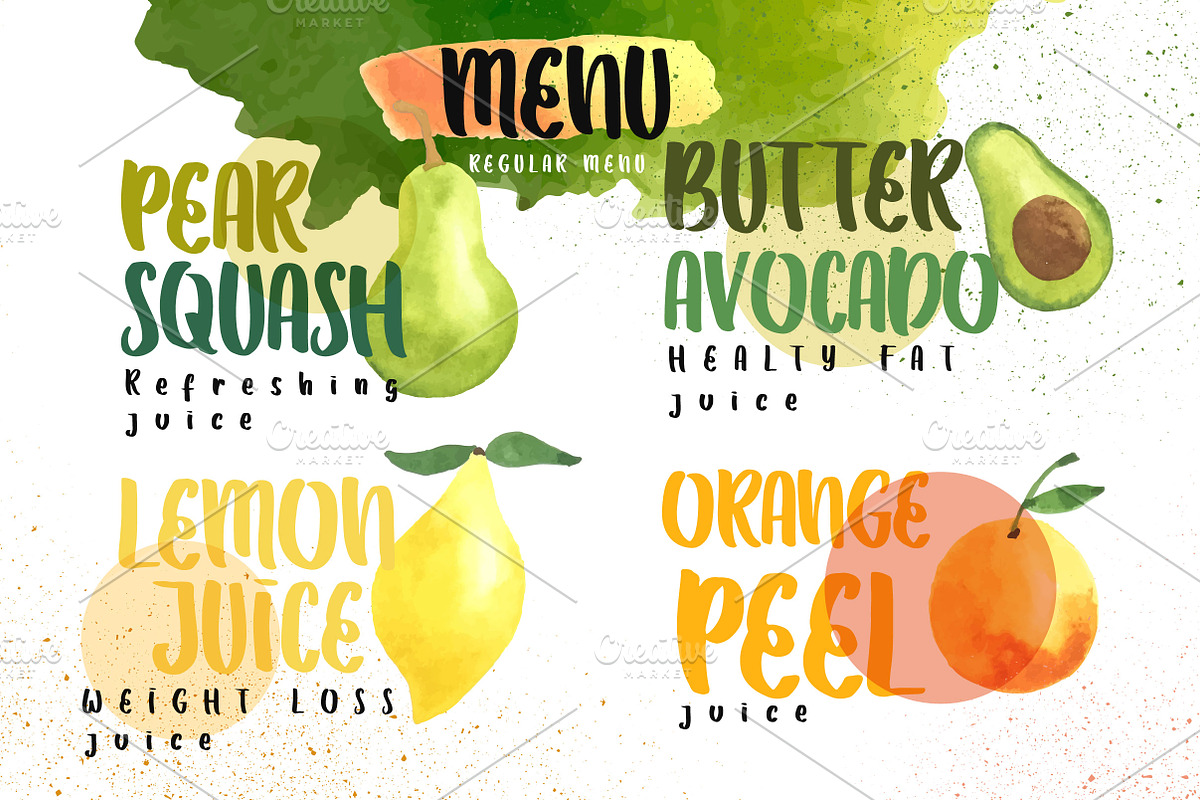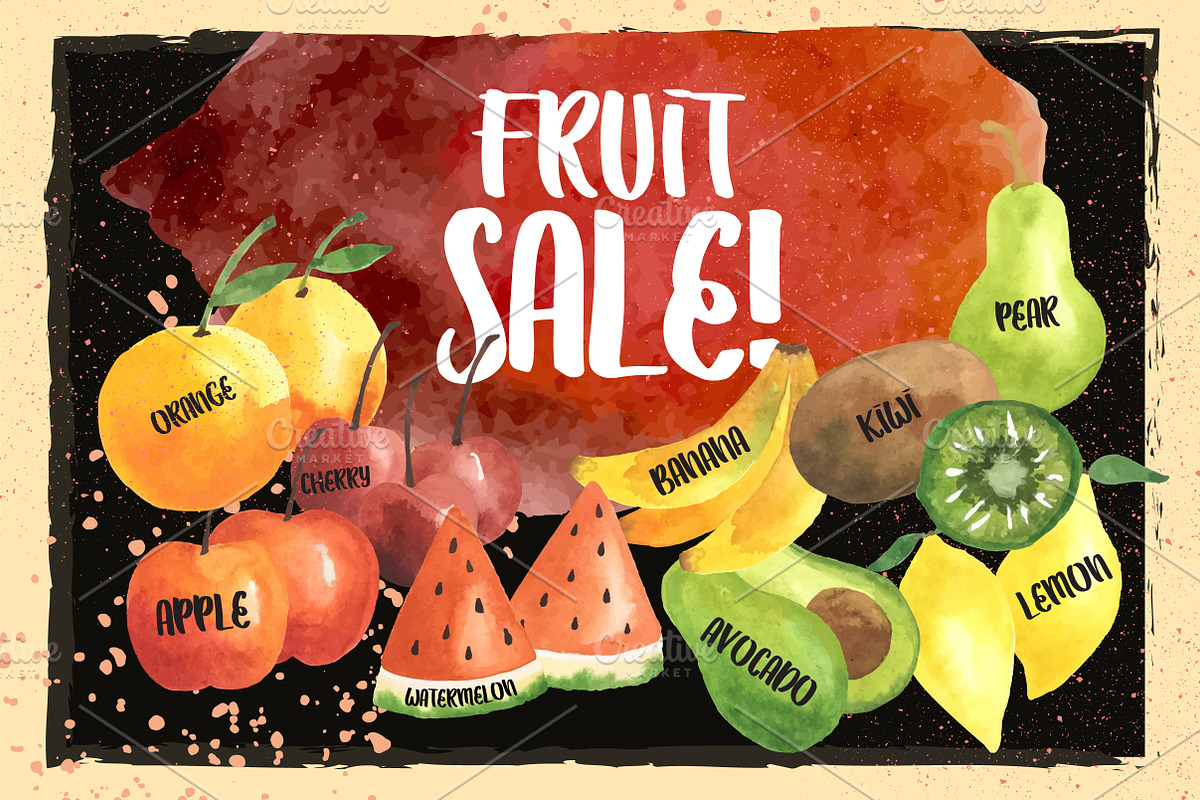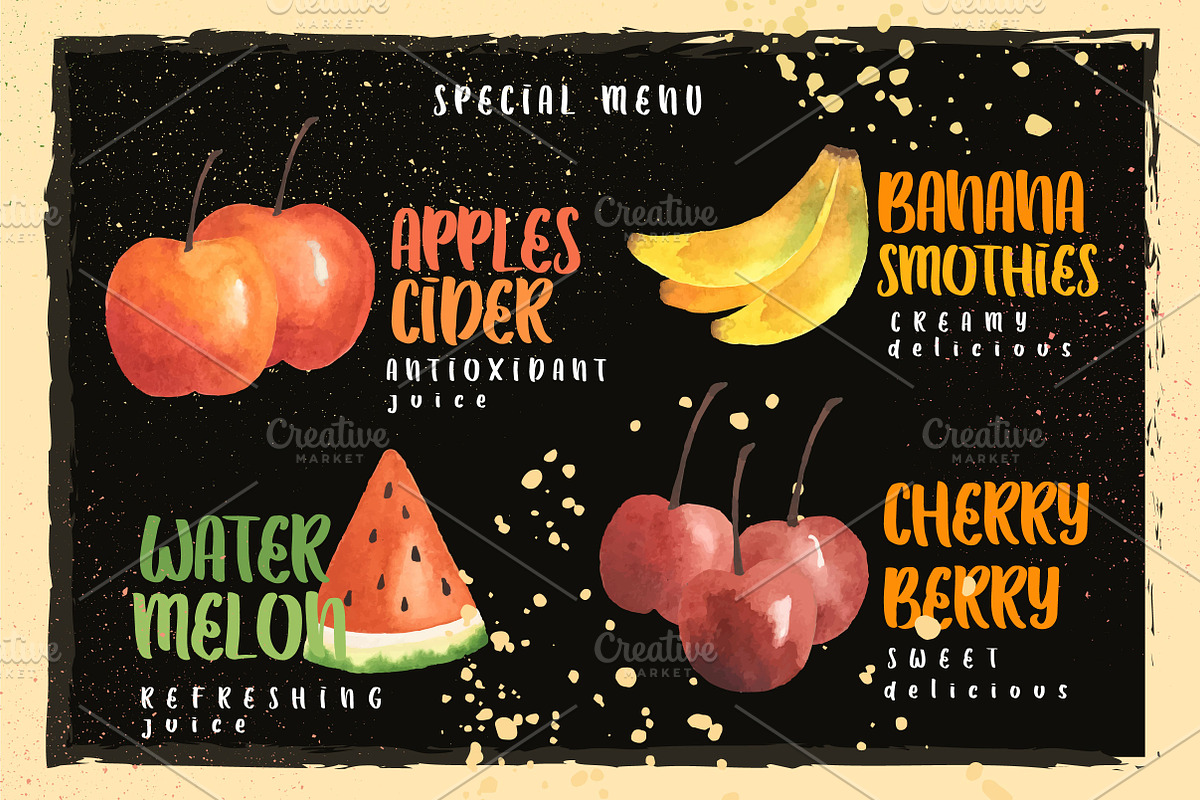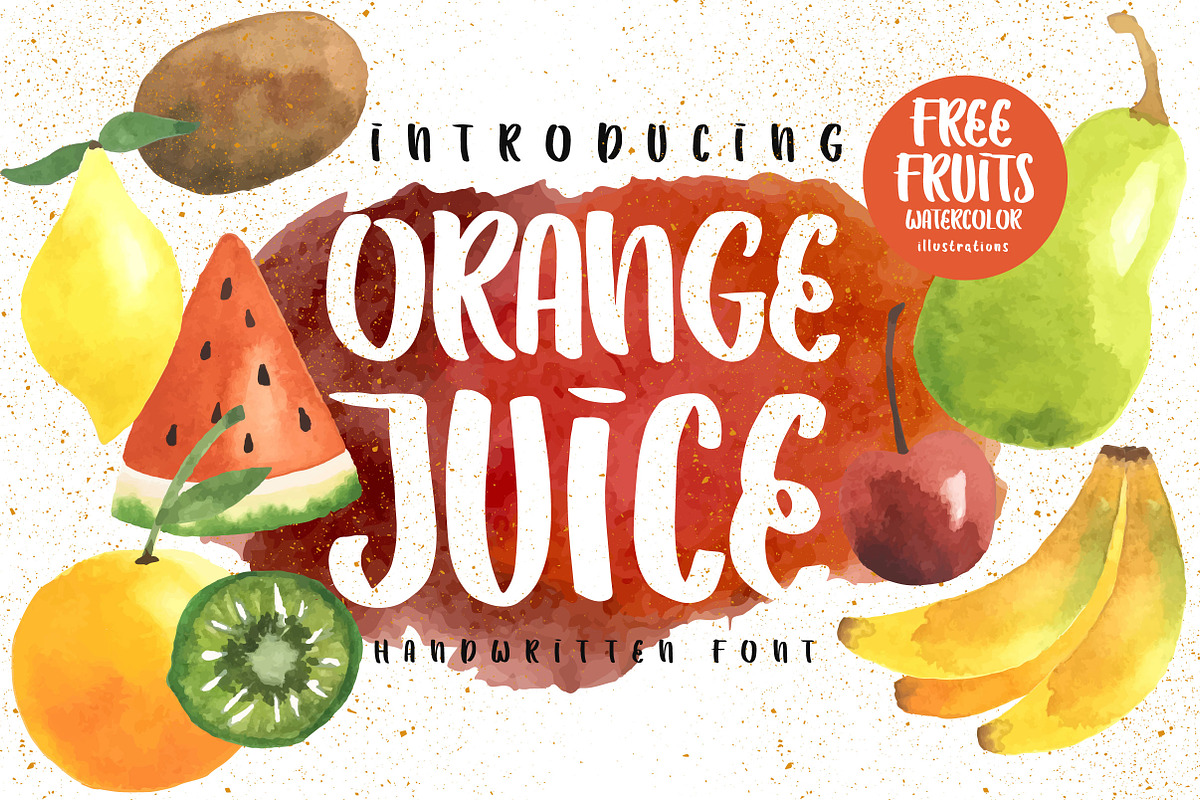
Orange Juice Font
Orange Juice is a quirky handwritten font with watercolour fruits illustration as a bonus! Make your own menu for juice shop, fruit shop, and many more.
Why Orange Juice Font is worth a look
Orange Juice Font by caocastudio fits naturally into Branding, posters, packaging, typography.